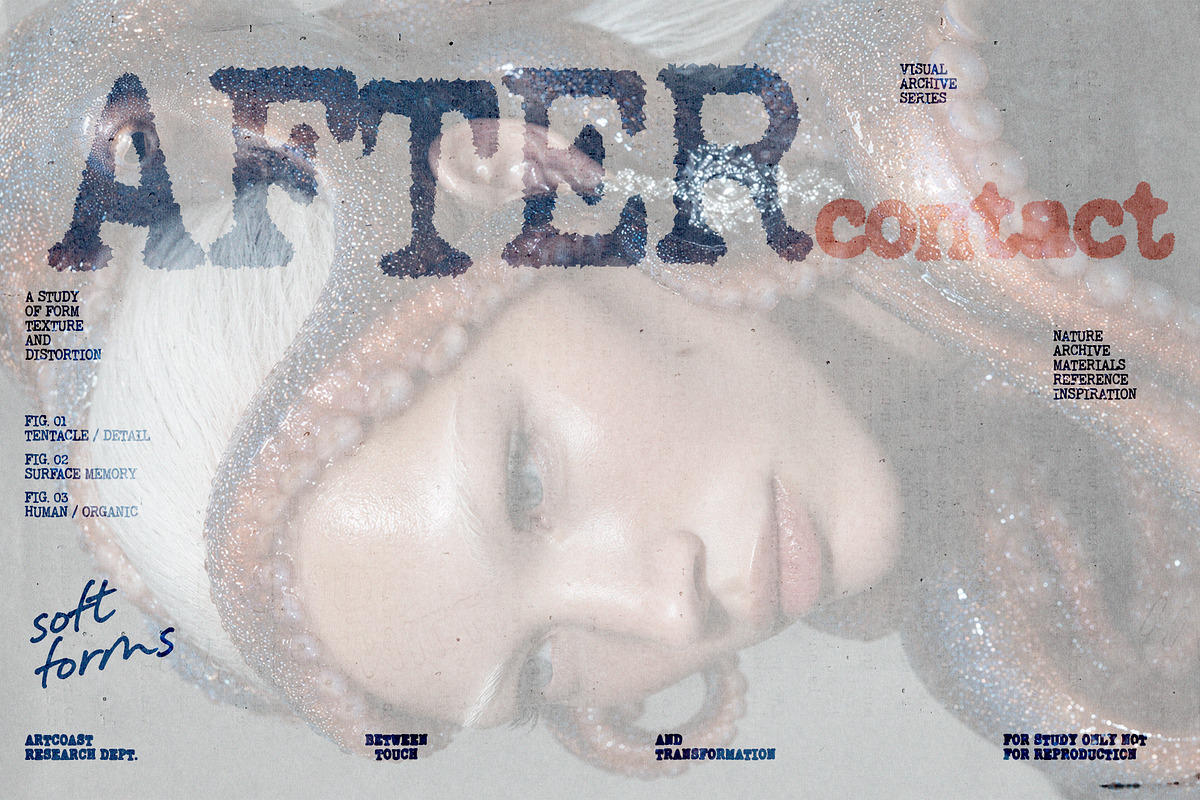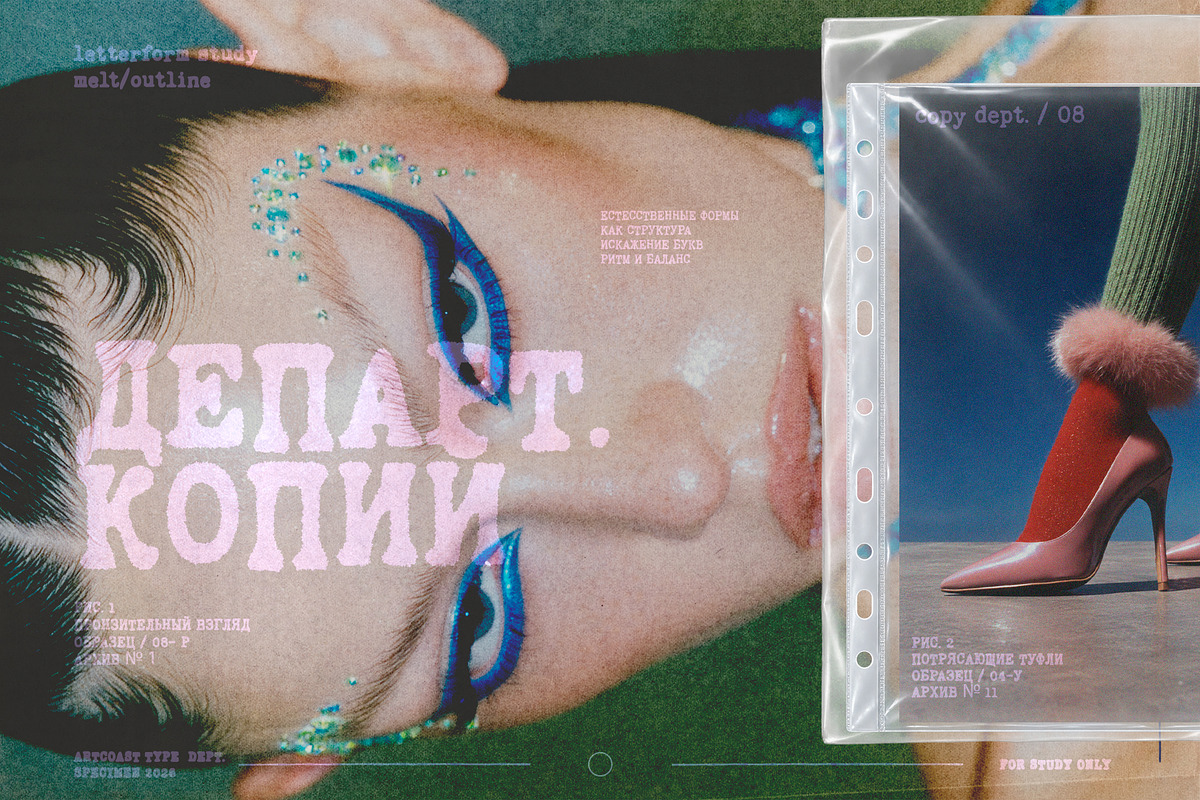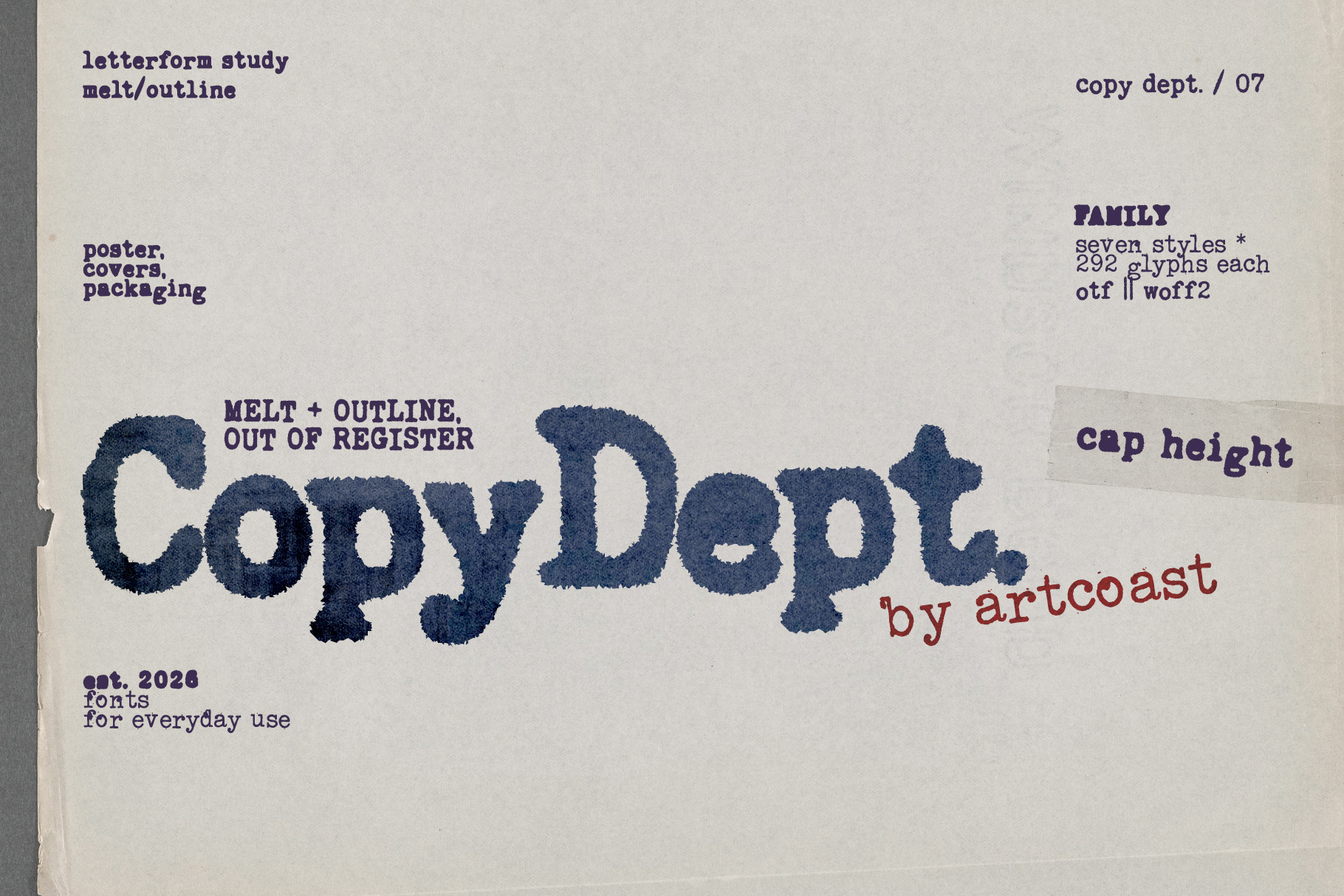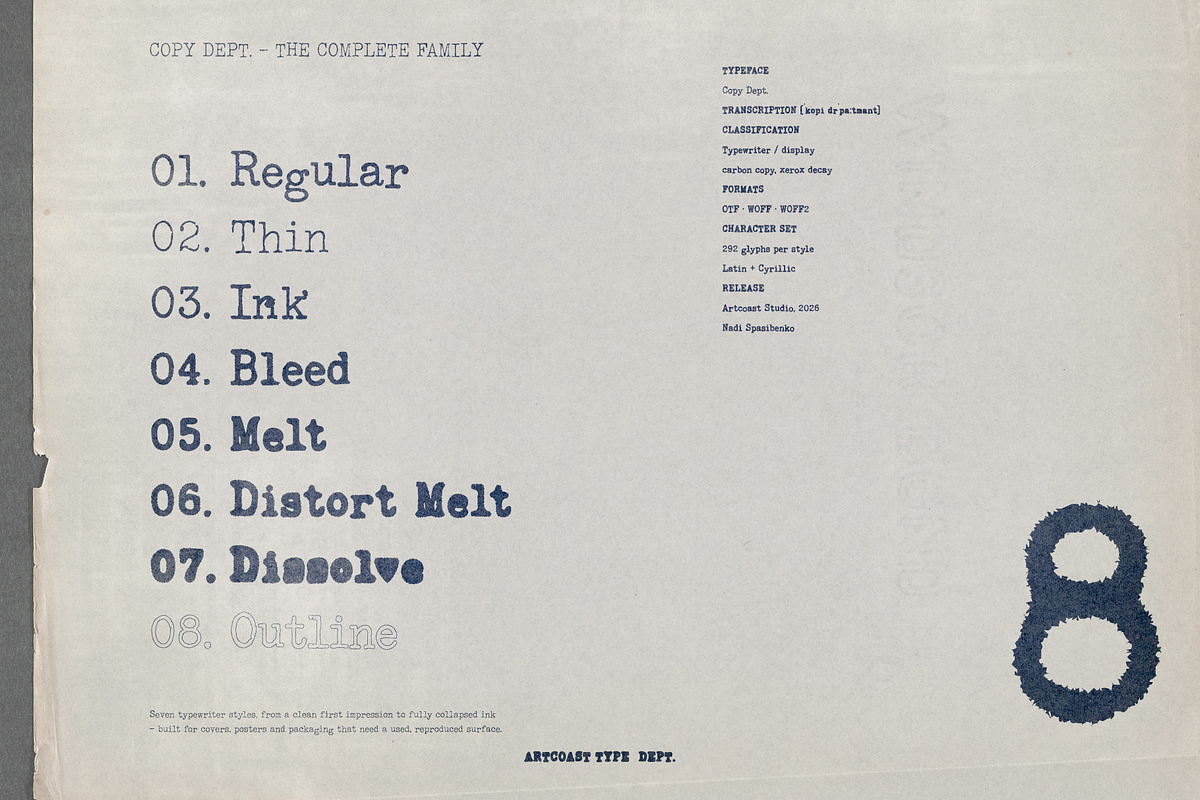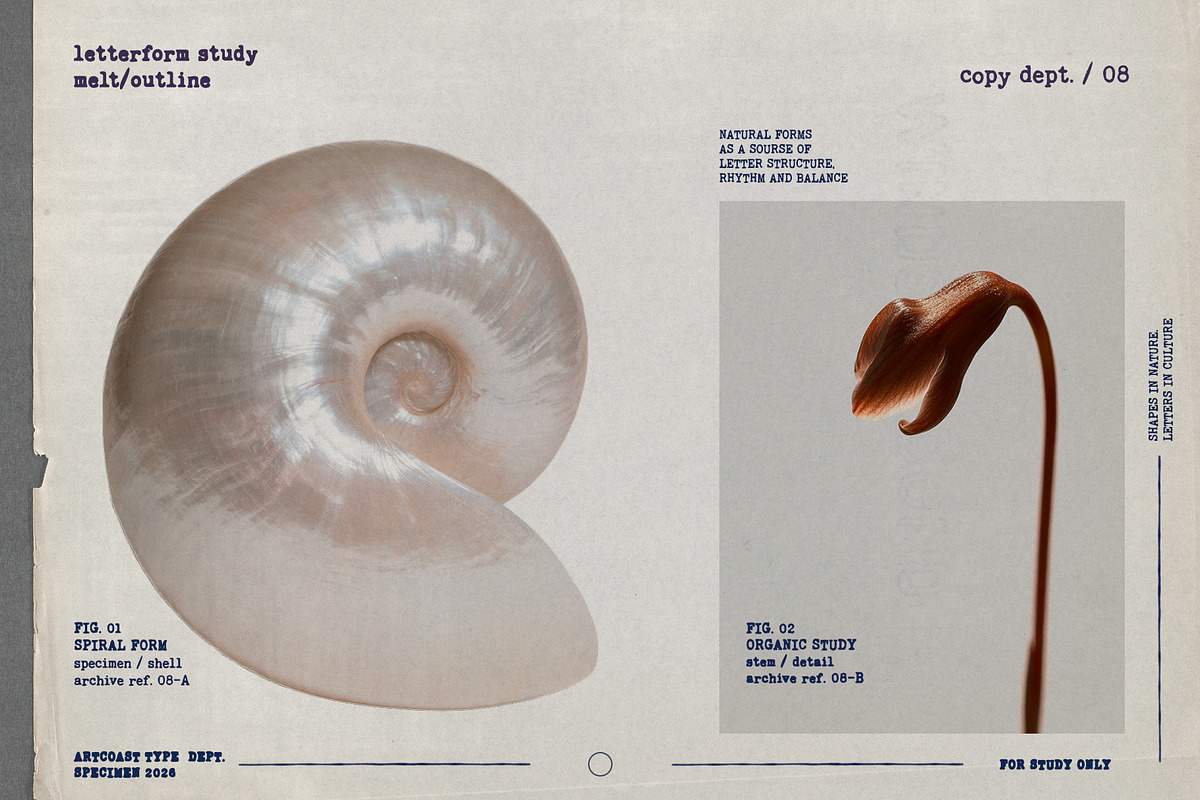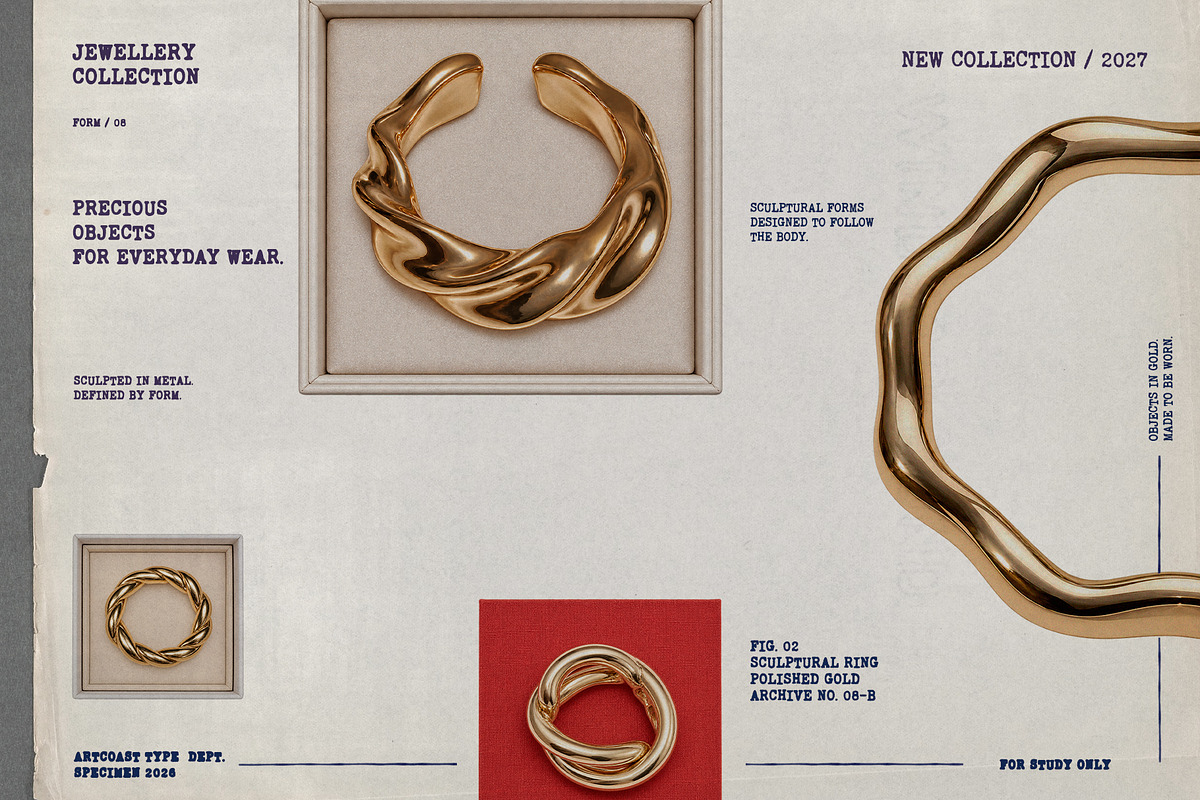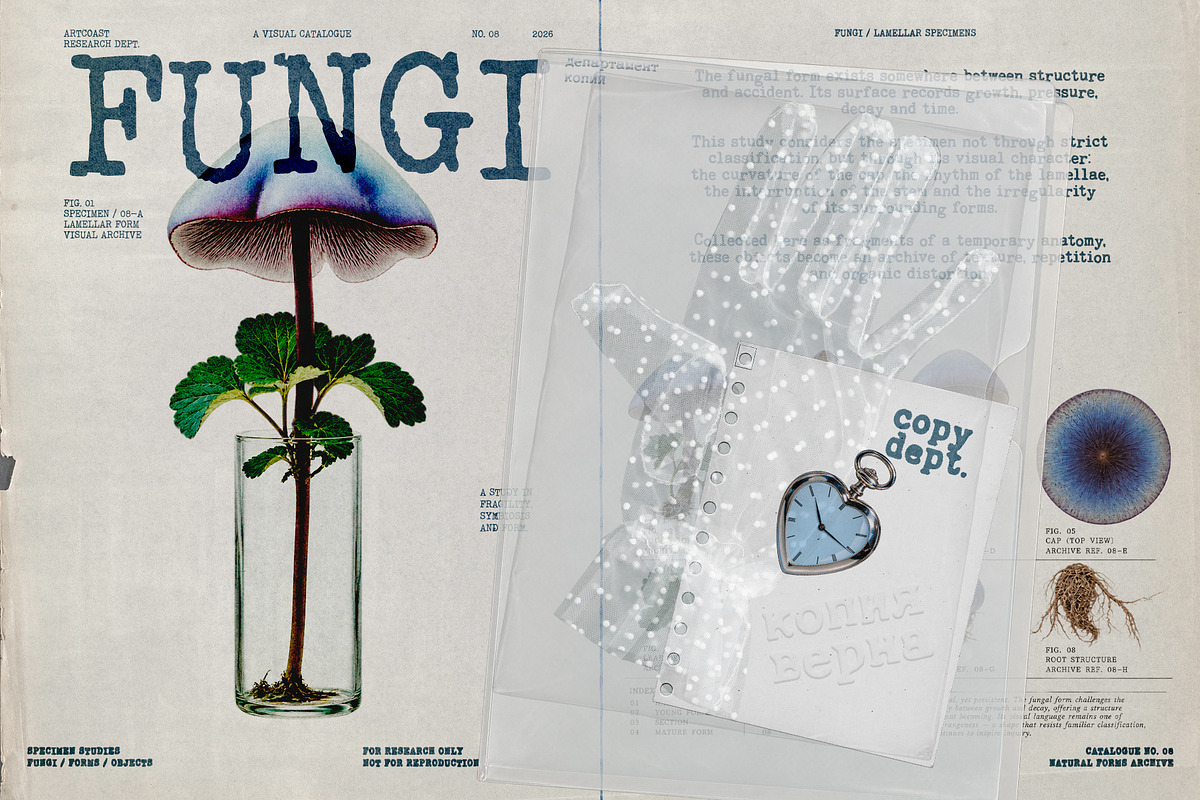
Copy Dept. — Editorial Archive Font
Copy Dept. is an experimental typewriter font family inspired by old editorial archives, carbon copies, photocopied documents, worn typewriter impressions, and imperfect analog printing.
Built around the idea of a typeface slowly breaking down through repeated reproduction, the family moves from a clean typewriter character to increasingly distorted, bleeding, melted, and degraded forms. Each style keeps the same recognizable structure while introducing its own level of analog imperfection.
Copy Dept. was designed for expressive typography where texture becomes part of the message. It works especially well for editorial layouts, magazine covers, posters, fashion branding, packaging, art books, zines, social media graphics, album artwork, and experimental identities.
The family includes 8 styles, allowing you to mix clean and heavily distressed typography within one visual system:
01. Regular — classic typewriter character 02. Thin — lighter, delicate impression 03. Ink — richer analog ink texture 04. Bleed — softened, spreading ink 05. Melt — distorted and partially dissolved 06. Distort Melt — heavily damaged, irregular letterforms 07. Dissolve — extreme degraded print texture 08. Outline — outlined companion style
The styles can be layered, mixed, and deliberately misregistered to create photocopy, offset-printing, archival, and experimental editorial effects.
Copy Dept. combines the familiarity of a vintage typewriter with the raw imperfections of xerox reproduction and decayed print — made for layouts that should feel collected, copied, handled, archived, and slightly destroyed.